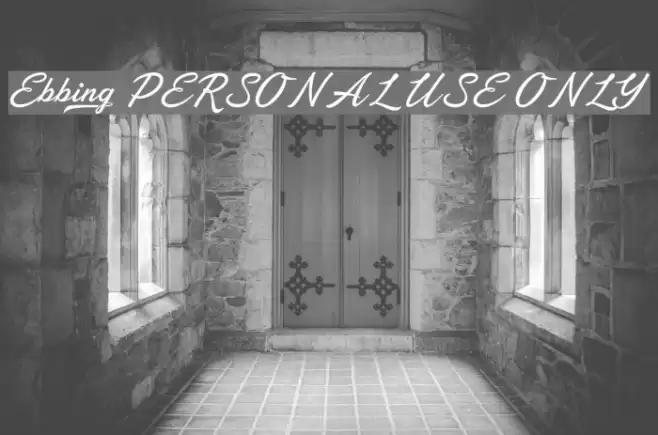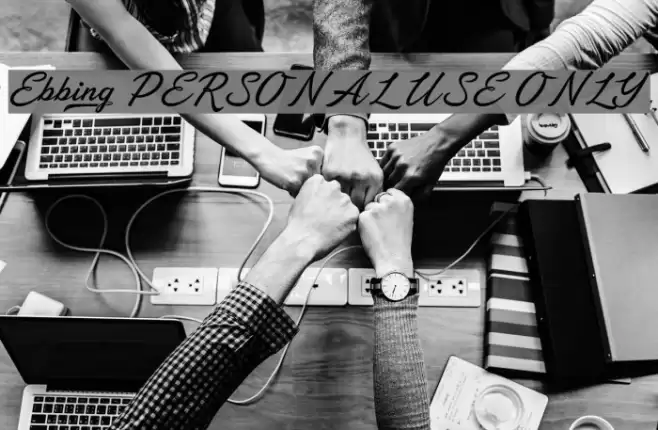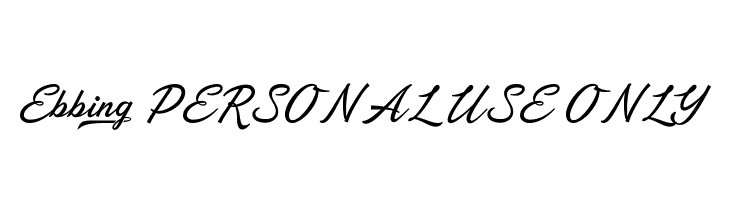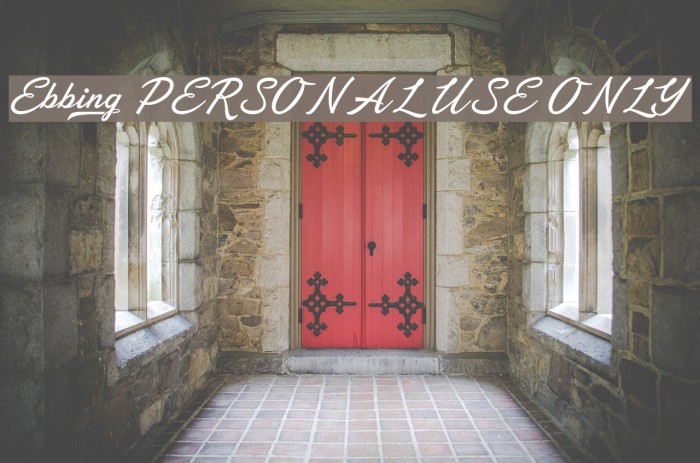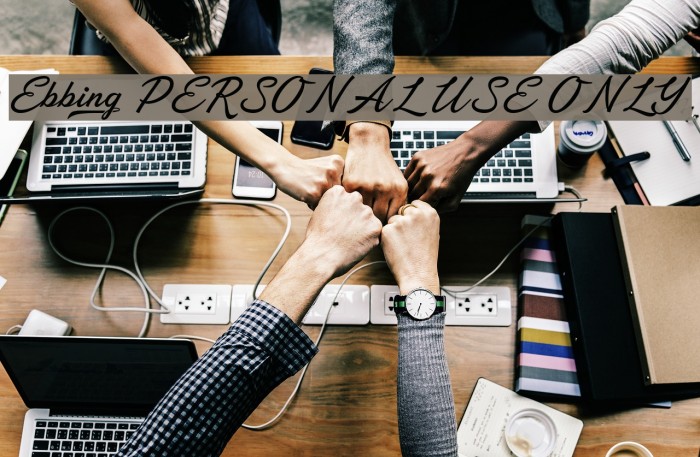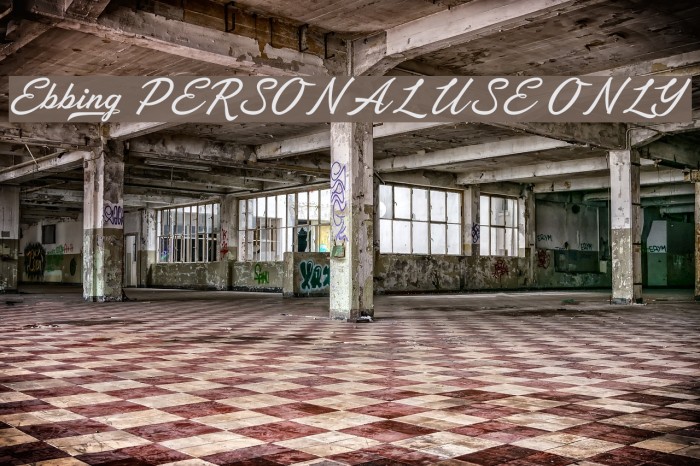
Ebbing PERSONAL USE ONLY Font
Ebbing PERSONAL USE ONLY Description
This font features an elegant script style with a flowing, cursive design. The uppercase letters are slightly slanted, giving a sense of movement and sophistication. The lowercase letters continue this fluidity with smooth, connected strokes that enhance readability while maintaining a stylish appearance. The numerals and special characters are crafted with the same attention to detail, ensuring consistency across all glyphs. This font's design is perfect for adding a touch of elegance and class to any project, making it ideal for invitations, branding, and decorative purposes.
An elegant, flowing script font with a sophisticated cursive design from Uncategorized fonts.
- Proposed Projects: Ideal for wedding invitations, branding, greeting cards, and decorative projects.
- Overall Style: Elegant, Decorative
- Use Case: Logos, Invitations, Decorative text